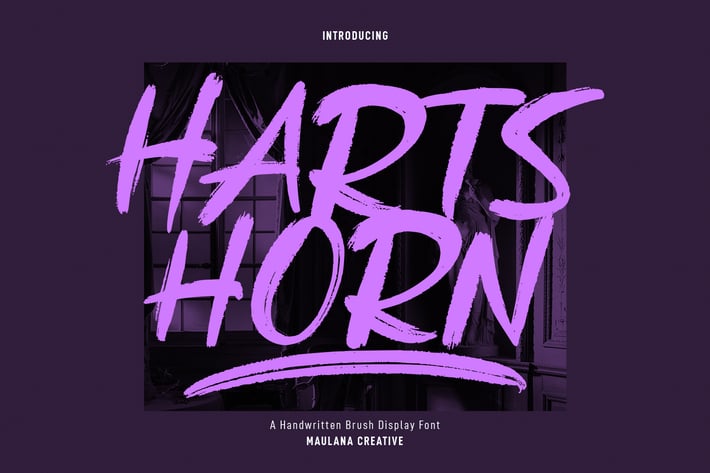
Hartshorn Brush Font
Hartshorn is a Handwritten font. With raw brush stroke, fun character with a bit of ligatures and swashes. To give you an extra creative work. Hartshorn font support multilingual more than 100+ language. This font is good for logo design, Social media, Movie Titles, Books Titles, a short text even a long text letter and good for your secondary text font with sans or serif. Make a stunning work with Hartshorn font.